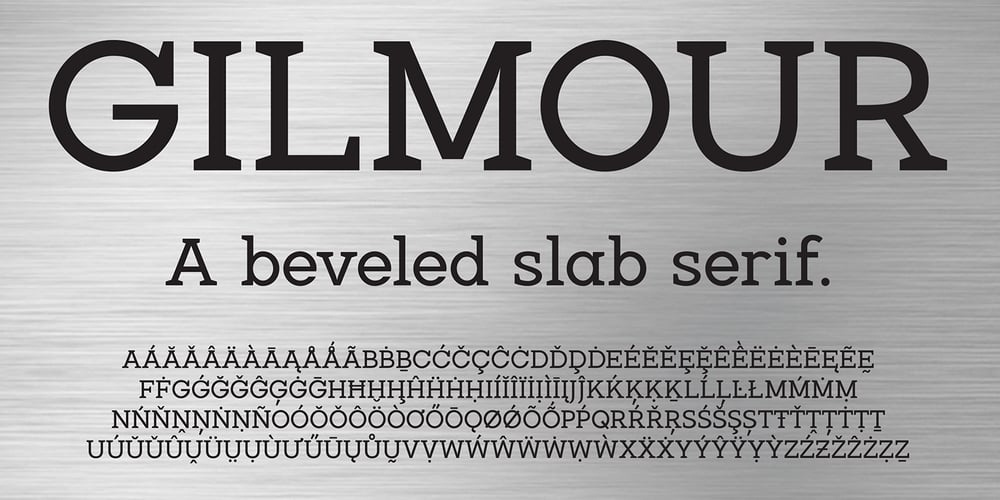
Gilmour Font Family was designed by Alec Julien and published by Haiku Monkey. Gilmour contains 4 styles and family package options. Gilmour is a strong, stable, beveled slab serif family, featuring hundreds of glyphs (including Cyrillic and small caps). Gilmour scales to any size beautifully, including uses large (headlines, posters, signage) and small (it retains excellent legibility down to footnote sizes).